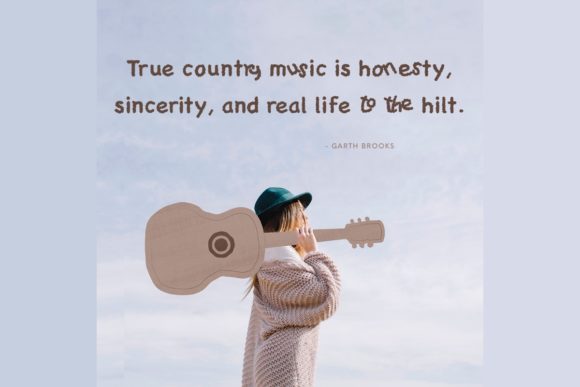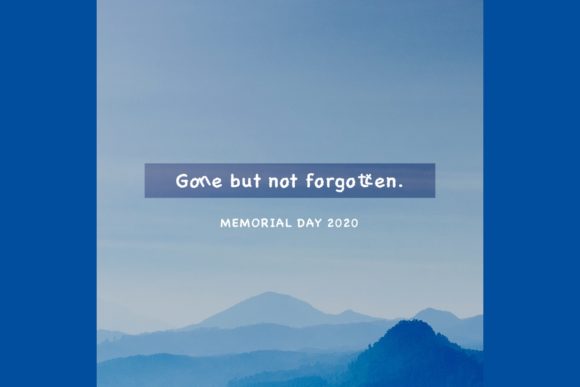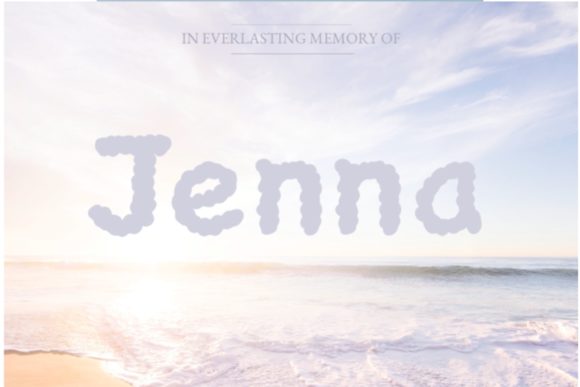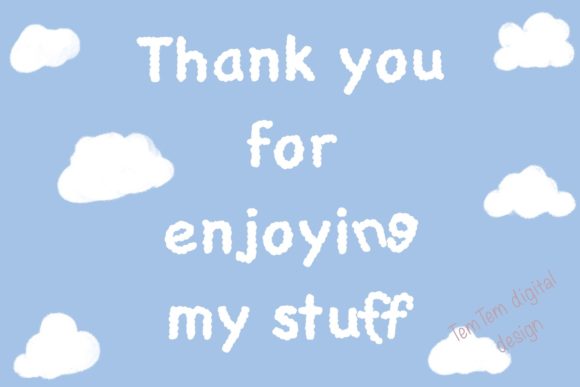
Introduction to Lovely Cloud Font Font
Fonts play a crucial role in design, and the Lovely Cloud Font font is a typeface that brings both character and versatility to any project. Whether you’re working on a branding project, a website, or a print design, the Lovely Cloud Font font offers a unique style that can elevate your work.
Lovely Cloud is a sweet and friendly handwritten font.
Its natural and unique style makes it incredibly fitting to a large pool of designs .
Key Features of Lovely Cloud Font Font
Why Choose Lovely Cloud Font Font?
The Lovely Cloud Font font is more than just a typeface – it’s a design tool that helps you communicate your message with style and clarity. Its unique character set and versatile design make it suitable for a wide range of applications, from elegant invitations to bold headlines.
With its carefully crafted letterforms and balanced proportions, the Lovely Cloud Font font ensures readability and visual appeal across all mediums.
What makes Lovely Cloud Font font special?
The Lovely Cloud Font font stands out with its unique design, exceptional readability, and versatility across various design applications.